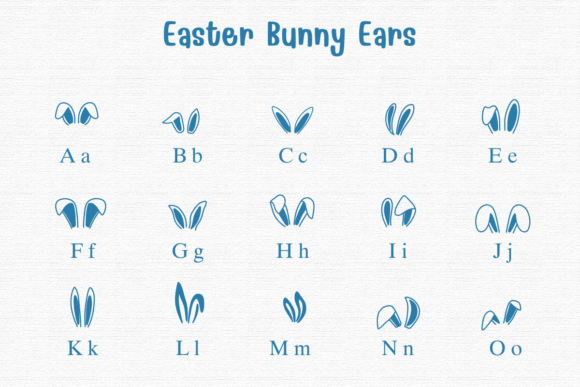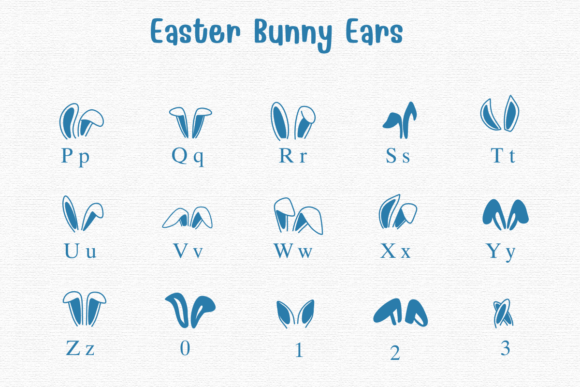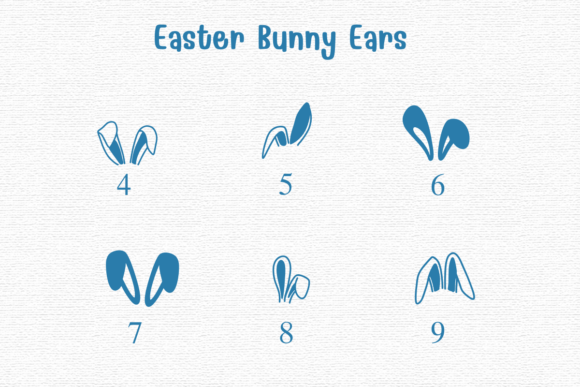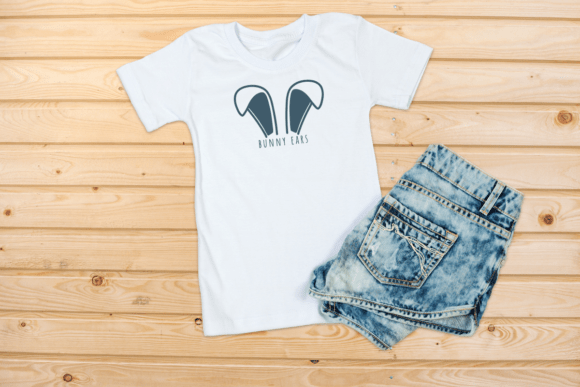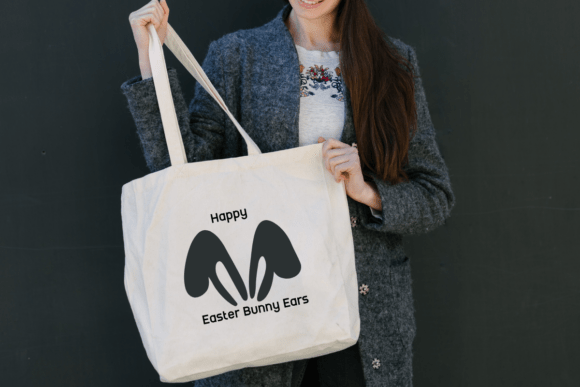
Easter Bunny Ears Font: A Fun and Creative Addition to Your Easter Designs
Are you looking for a unique and playful font to add to your Easter designs? Look no further than the Easter Bunny Ears Font! This fun and creative font is perfect for designers and crafters who want to add a touch of whimsy to their Easter-themed projects. In this article, we’ll take a closer look at the Easter Bunny Ears Font, its features, and how you can use it to create amazing Easter designs.
What is Easter Bunny Ears Font?
The Easter Bunny Ears Font is a special font designed specifically for Easter-themed designs. It’s a collection of adorable bunny ears and other Easter-related icons, such as eggs, flowers, and more. The font comes in various formats, including OTF, TTF, and ProcreateFont, making it compatible with a range of design software, including Affinity Designer, Affinity Photo, and Procreate.
Features of Easter Bunny Ears Font
The Easter Bunny Ears Font is a versatile and fun font that offers a range of features, including:
- Easter-themed icons: The font includes a range of Easter-themed icons, such as bunny ears, eggs, flowers, and more.
- Dingbats and doodle designs: The font features dingbats and doodle designs that can be used to add a playful touch to your Easter designs.
- Coloring outline: The font includes coloring outline designs that can be used to create custom Easter coloring pages.
- Cartoon-style designs: The font features cartoon-style designs that are perfect for creating fun and playful Easter designs.
Easter Design Ideas Using Easter Bunny Ears Font
The Easter Bunny Ears Font is perfect for a range of Easter design projects, including:
- Easter cards: Create custom Easter cards using the Easter Bunny Ears Font.
- Easter invitations: Design Easter invitations that feature the adorable bunny ears and other Easter icons.
- Easter coloring pages: Create custom Easter coloring pages using the coloring outline designs.
- Easter crafts: Use the Easter Bunny Ears Font to create Easter crafts, such as DIY Easter decorations and gift tags.
The Easter Bunny Ears Font is a fun and creative addition to any Easter design project. With its range of Easter-themed icons, dingbats, and doodle designs, it’s perfect for designers and crafters who want to add a touch of whimsy to their Easter designs. Whether you’re creating Easter cards, invitations, coloring pages, or crafts, the Easter Bunny Ears Font is sure to inspire your creativity.